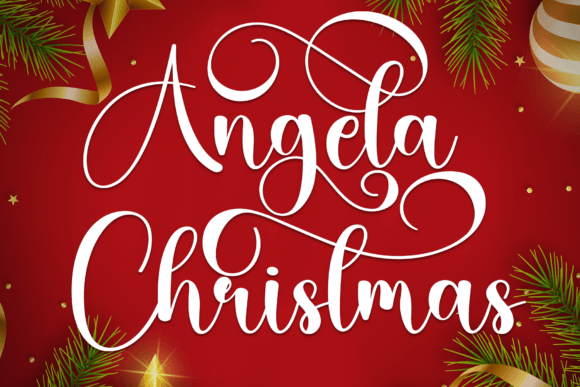
The Perfect Holiday Touch: Discovering the Angela Christmas Font
It’s that time of the year again – the season for creating festive designs, greeting cards, and holiday crafts. As designers, crafters, and creative hobbyists, we’re always on the lookout for that special something to make our projects stand out. I still remember the year I spent hours scouring font libraries for the perfect handwritten font to use on a client’s Christmas card project. The brief was simple: create a warm, inviting design that felt like a handwritten letter from a friend. That’s when I stumbled upon the Angela Christmas font, and it quickly became my go-to for adding a personal touch to any project.
A Personal Favorite: What I Love About Angela Christmas Font
The Angela Christmas font has a unique, casual style that instantly adds a touch of creativity to any project. Here are a few things that make it stand out:
- ✨ Smooth, flowing lines that give it a relaxed and personal feel
- ✅ A wide range of uses, from holiday cards and invitations to craft projects and digital designs
- 💫 A distinctive, handwritten look that’s both elegant and approachable
While I adore the Angela Christmas font, there are a few quirks to be aware of:
- ✅ What I love: The font’s versatility and range of applications
- ✅ What I love: The smooth, flowing lines that make it feel so personal
- 🤔 One thing to note: The font may not be the best choice for very small text sizes, as some details can get lost
- ⚠️ A minor limitation: Some users may find the font a bit too casual for very formal projects
One of the standout features of the Angela Christmas font is its range of OpenType features and glyphs. These allow you to customize the font to suit your design needs. For example, you can use:
- Ligatures to create a more fluid, connected look
- Stylistic alternates to add more variety to your text
- Glyphs to add decorative elements, such as swashes or ornaments
The Story Behind Angela Christmas Font
The Angela Christmas font was designed with the intention of capturing the warmth and magic of the holiday season. The designer aimed to create a font that felt like a handwritten letter from a friend – personal, inviting, and full of character. With its smooth, flowing lines and casual style, Angela Christmas is the perfect choice for adding a touch of creativity to your holiday designs.
| Is the Angela Christmas font suitable for small text sizes? | While the font can be used for small text sizes, it may not be the best choice. Some details can get lost at very small sizes, so it’s best to use it for larger text or headlines. |